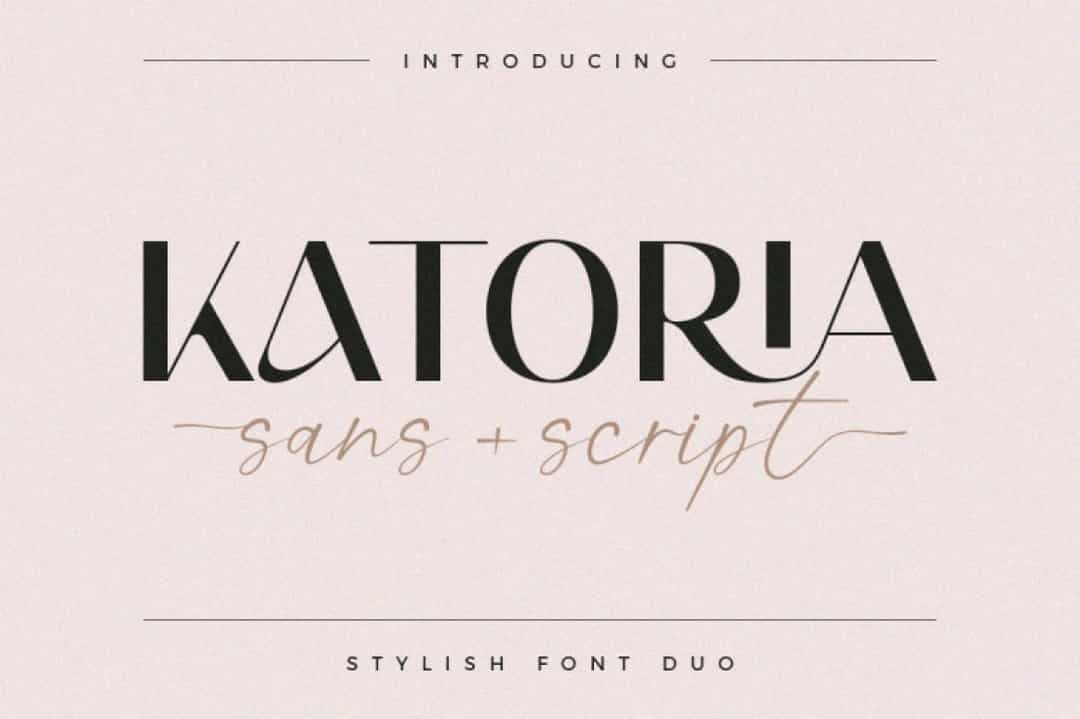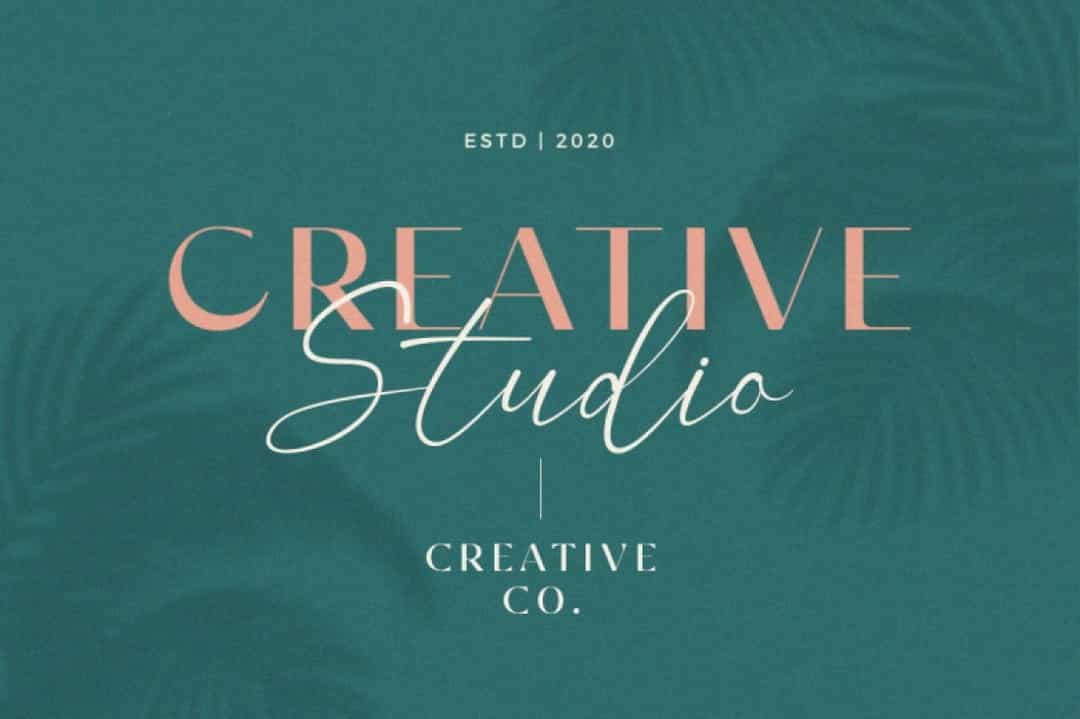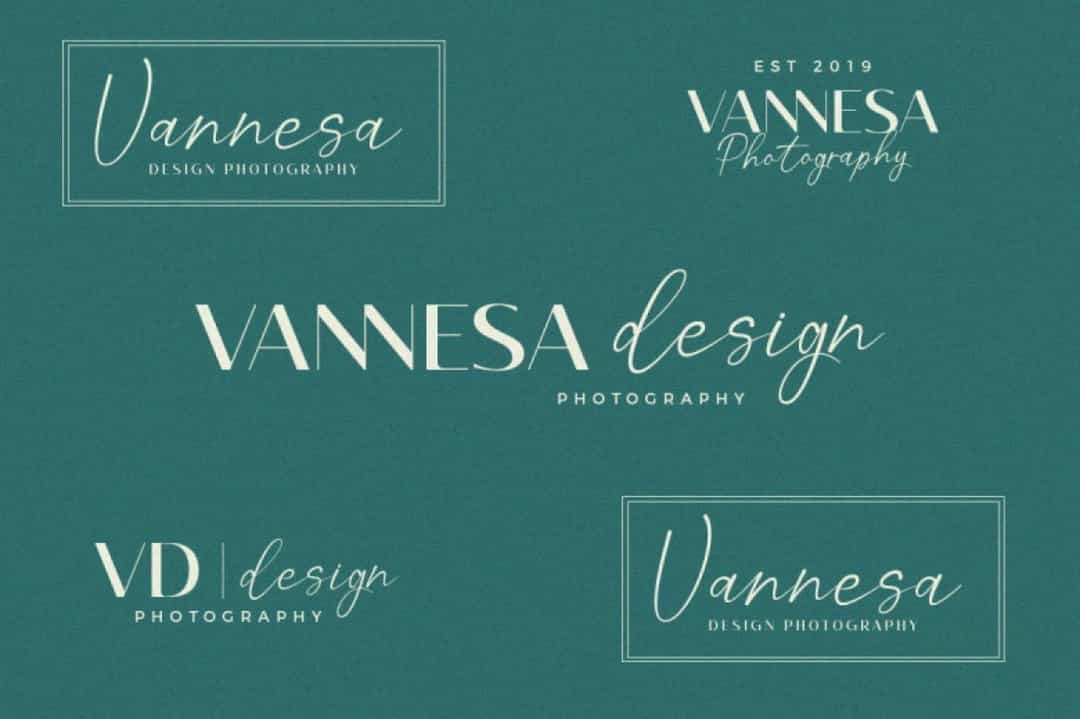
Welcome Katoria a premium font duo that boasts sophisticated combinations. Ideal as both an additional or primary font, all uppercase characters in Katoria provide endless design opportunities and features including numerous ligatures to help create unique designs in your work.